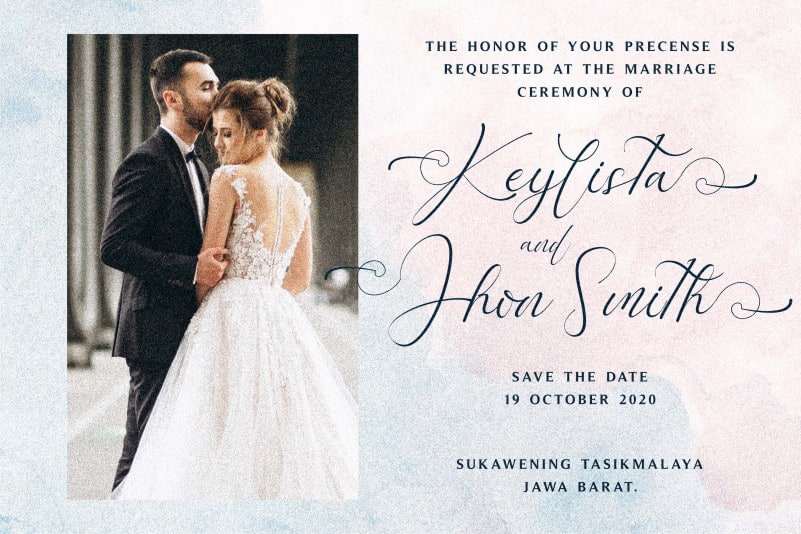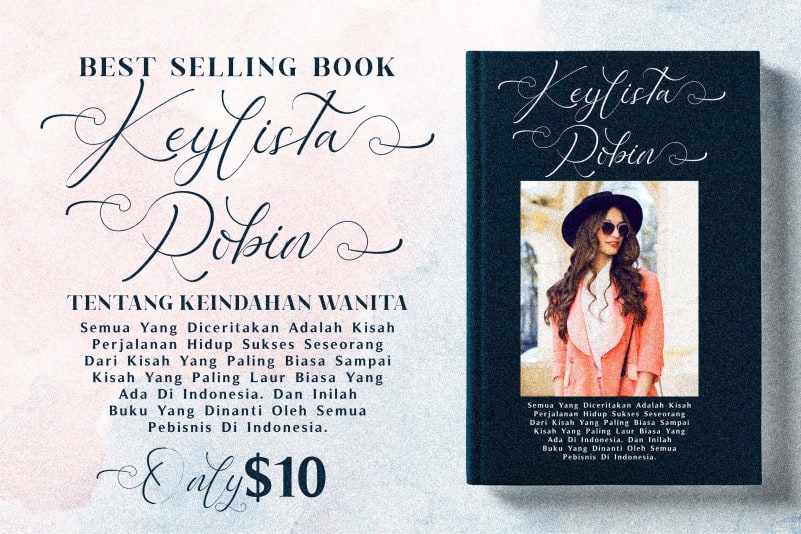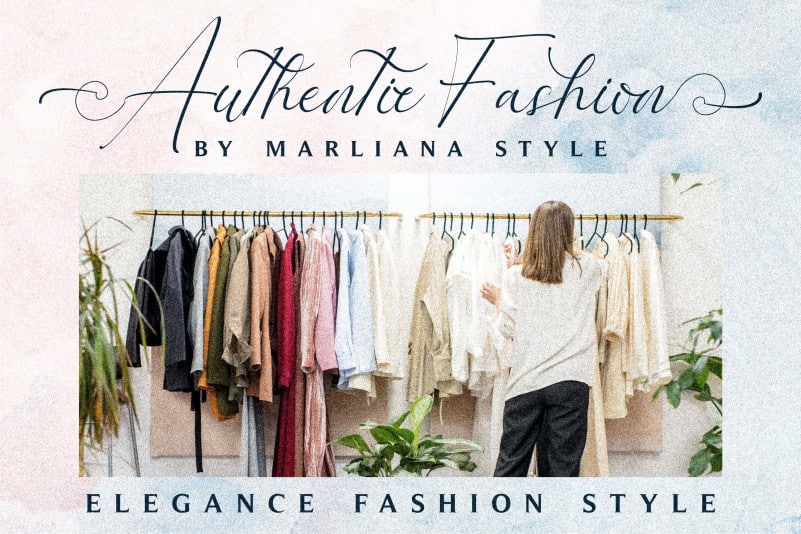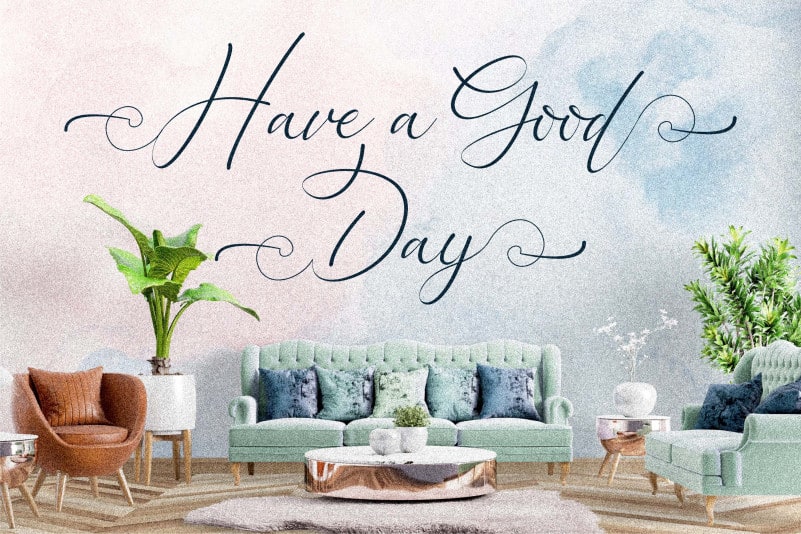
Keylista Robin Calligraphy Font is a thin and stylish handwritten font. It looks stunning on wedding invitations, thank you cards, quotes, greeting cards, logos, business cards and every other design which needs a handwritten touch.